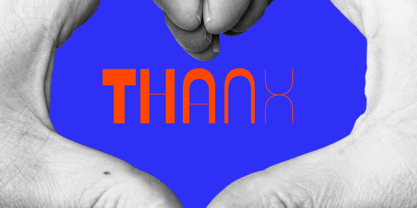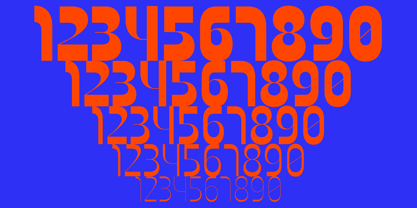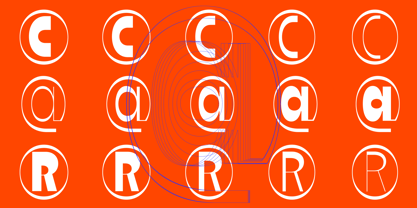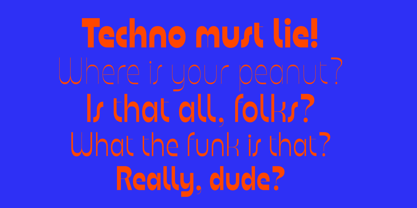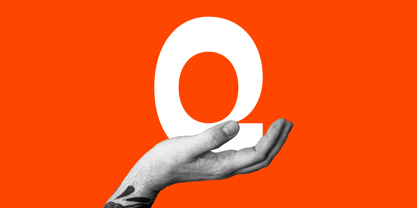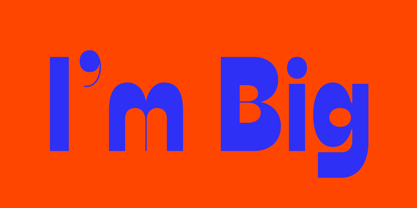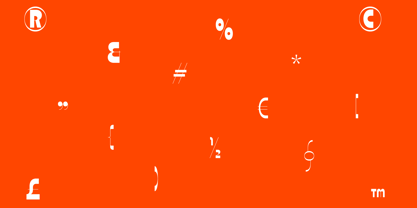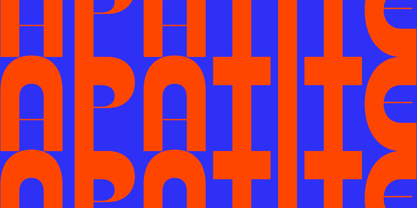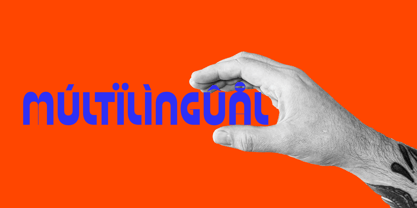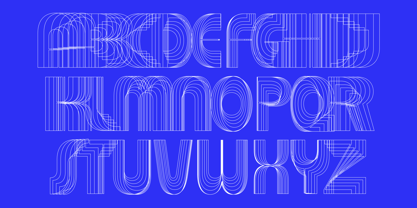
Apatite
by DogType
The Apatite Font Family was designed by Roman Shchiukin and published by DogType. Apatite contains 5 styles and family package options. More about this family
Meet Apotite, a typeface that defies the ordinary and brings vibrant energy to your design! Bold, unique and expressive, it's perfect for those who want to stand out. Apotite masterfully balances retro and modern: the combination of flowing lines and contrast gives the text a distinctive character and expression.
Apotite is designed to attract attention! Bright contrasting colors enhance the effect, while smooth shapes and original accents make each word memorable. This font is ideal for posters, headlines, branding and magazine layouts that need a creative, out-of-the-box approach. For editorial spreads or impactful covers, Apotite adds dynamics and style, making it the perfect choice for projects that demand attention.
Designers: Roman Shchiukin
Current Foundry: DogType